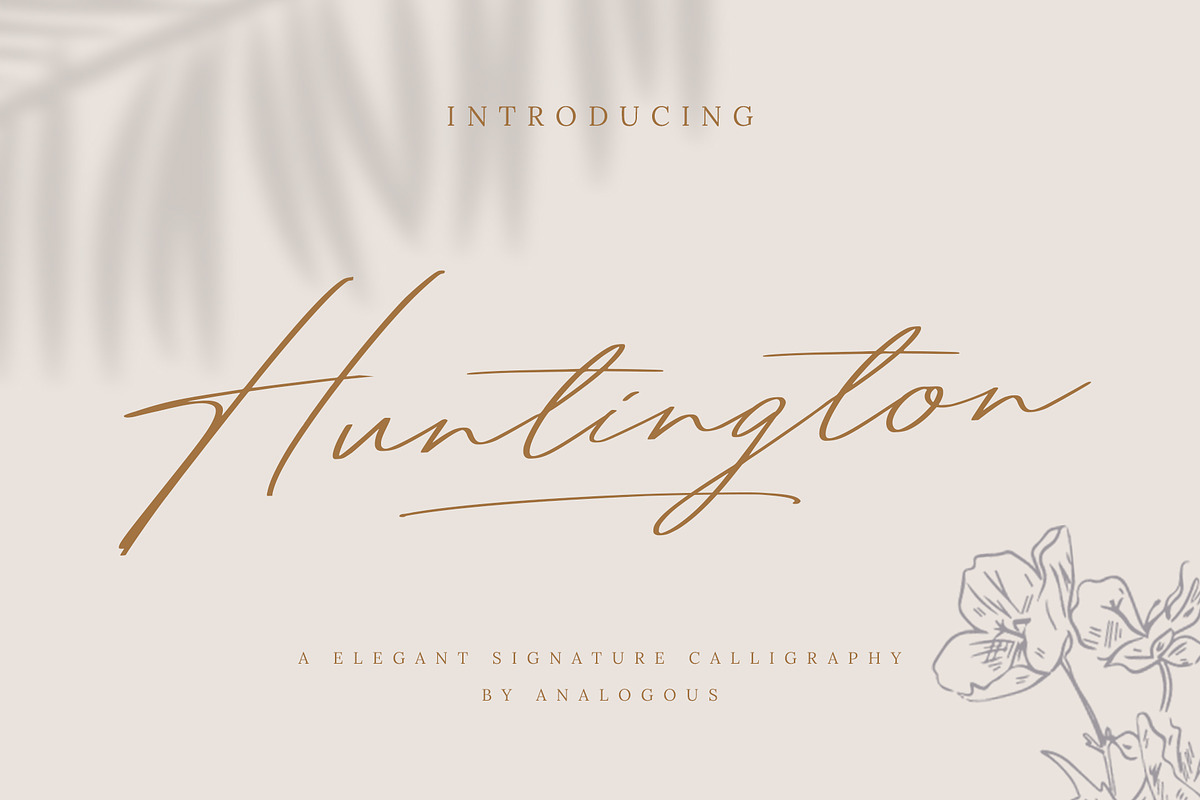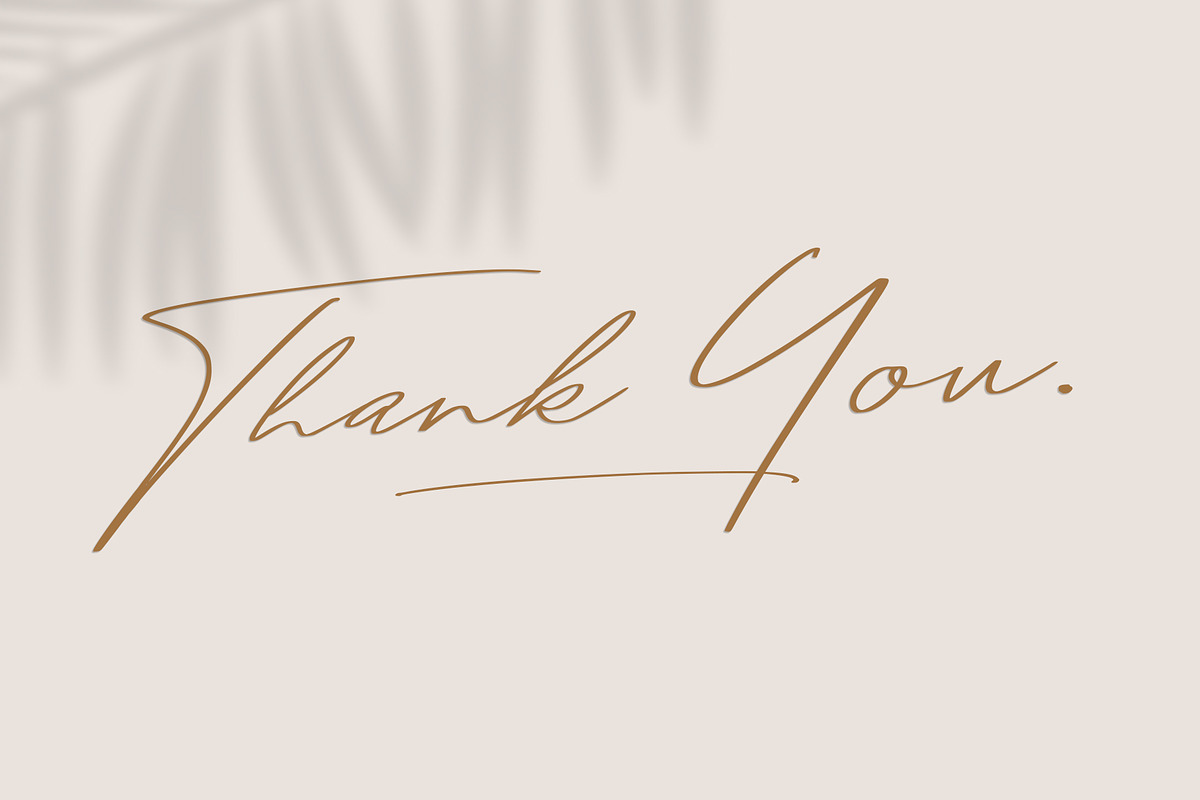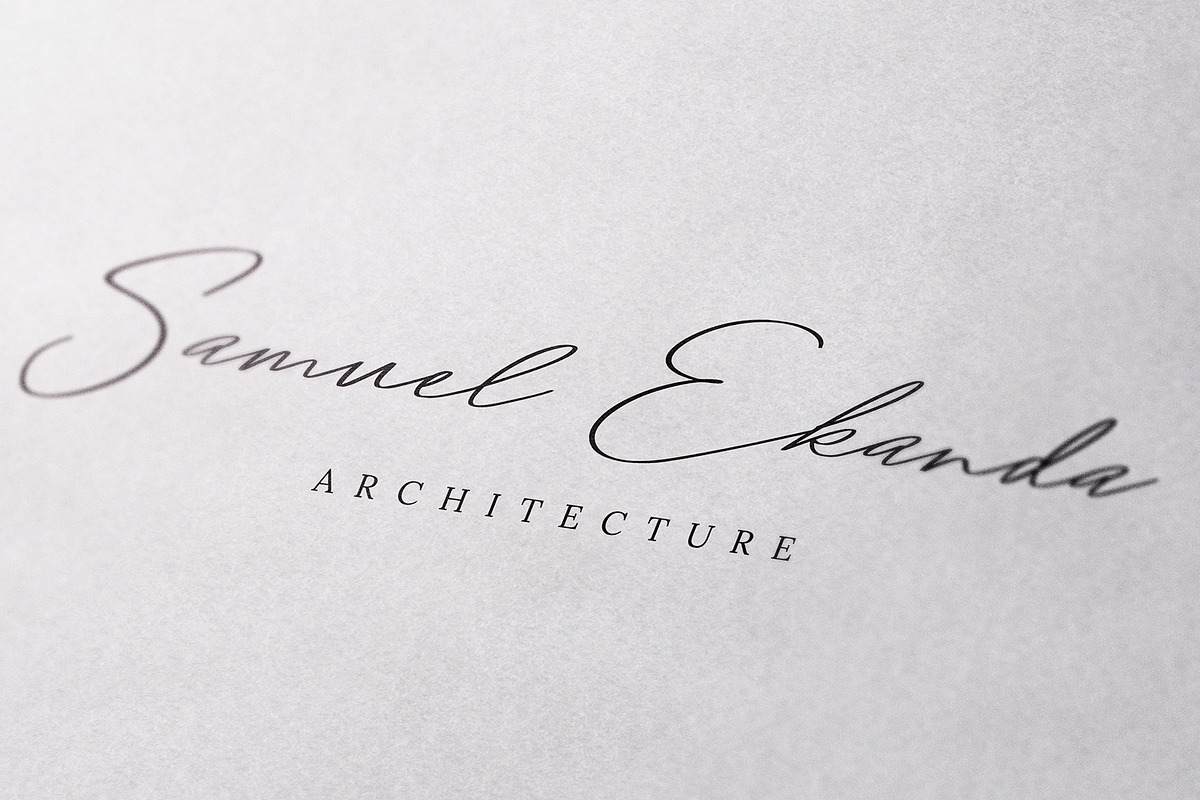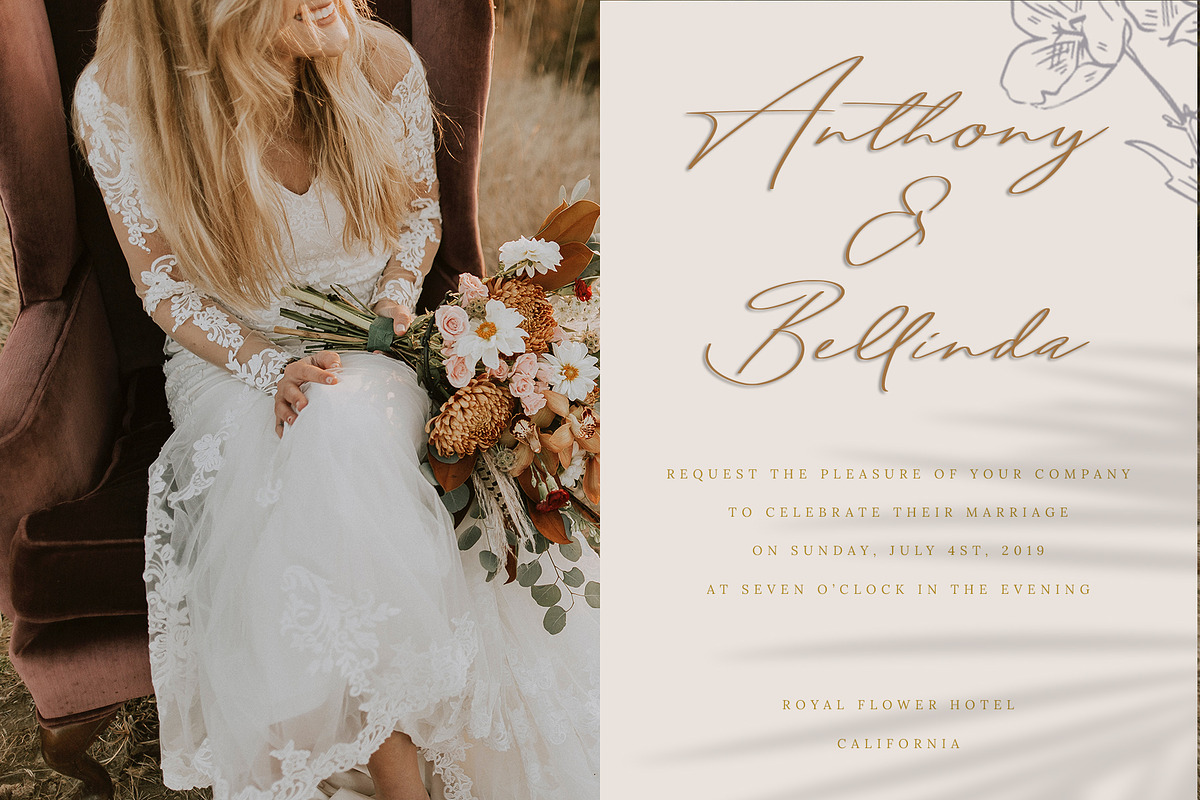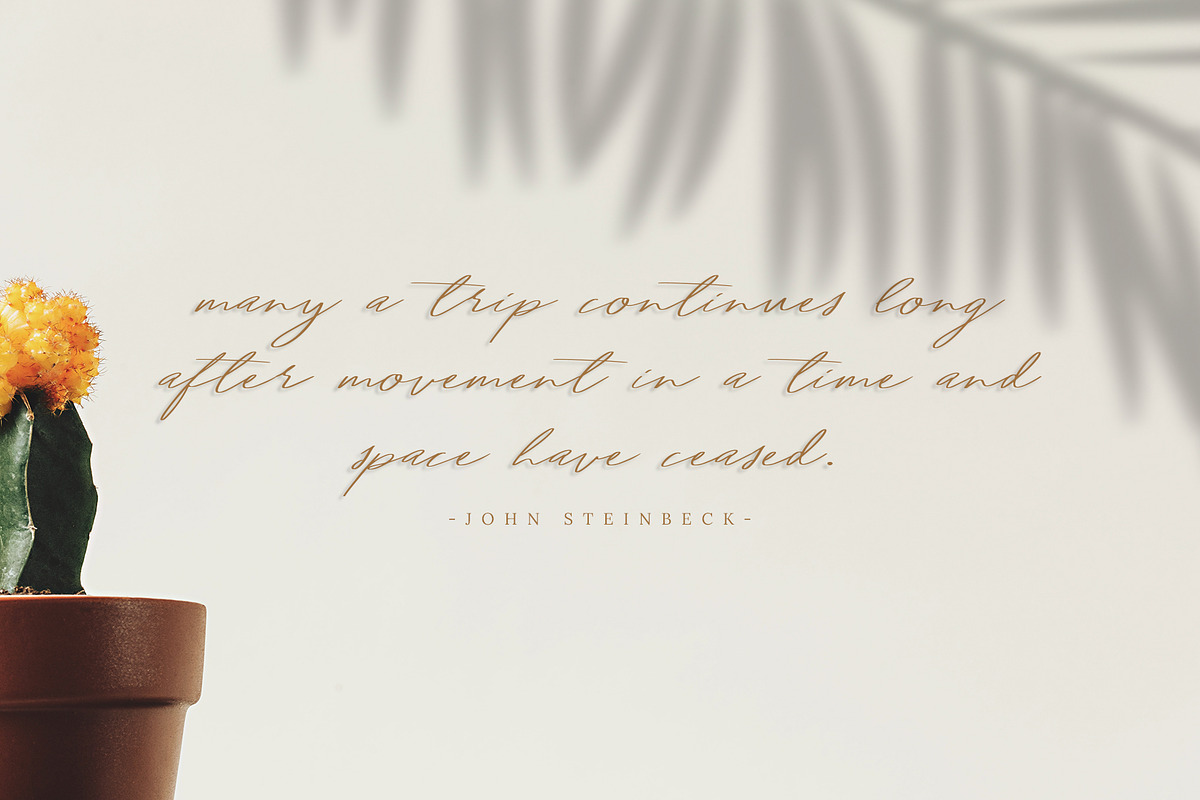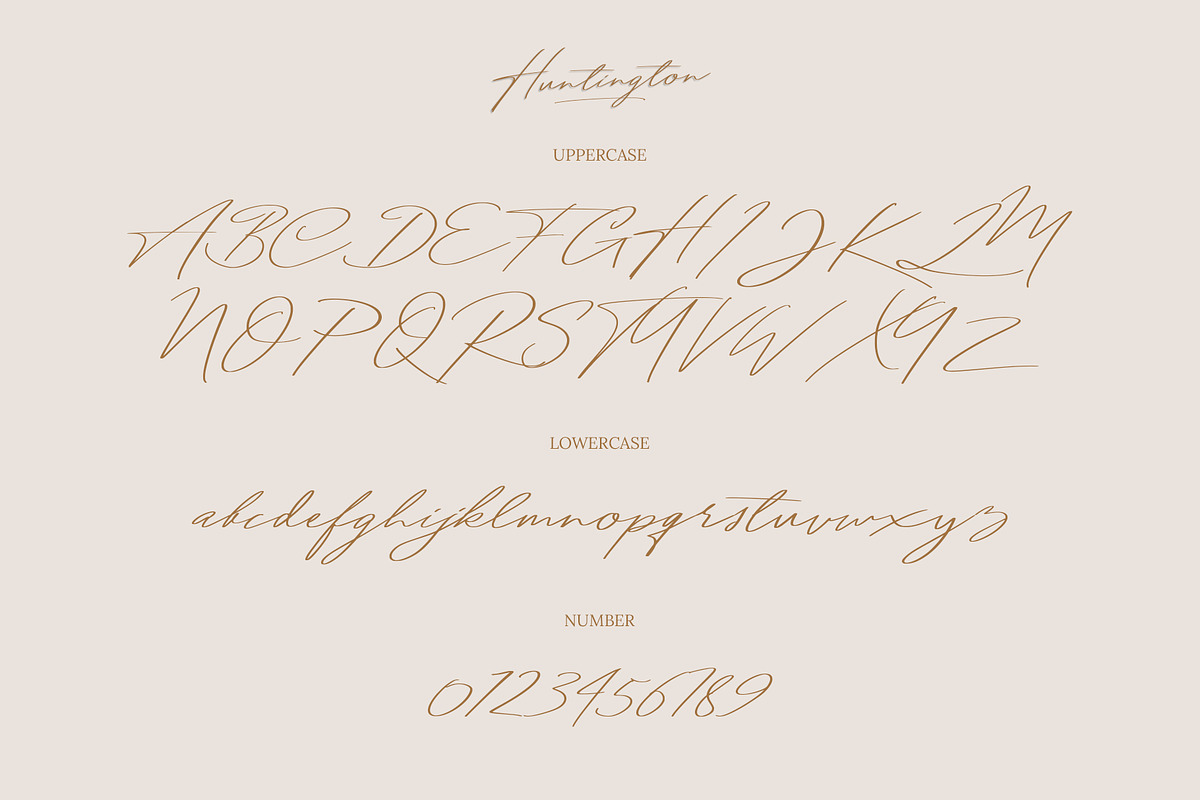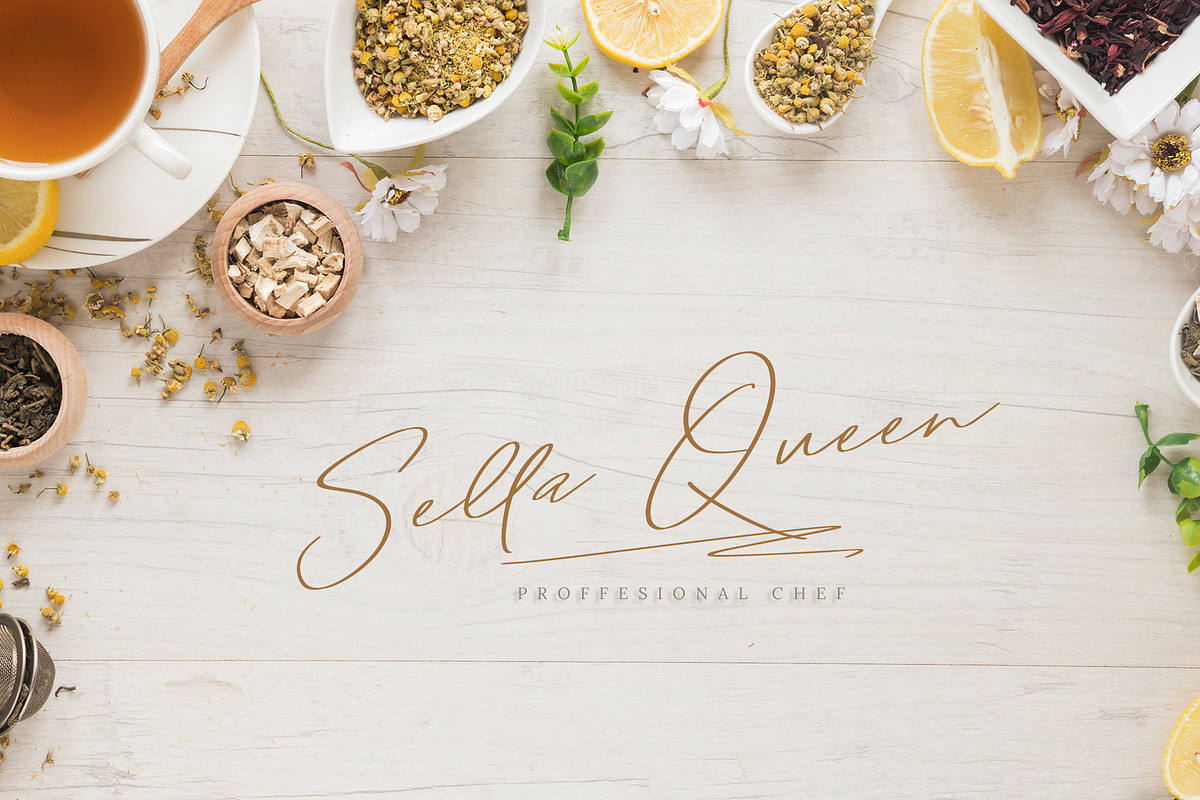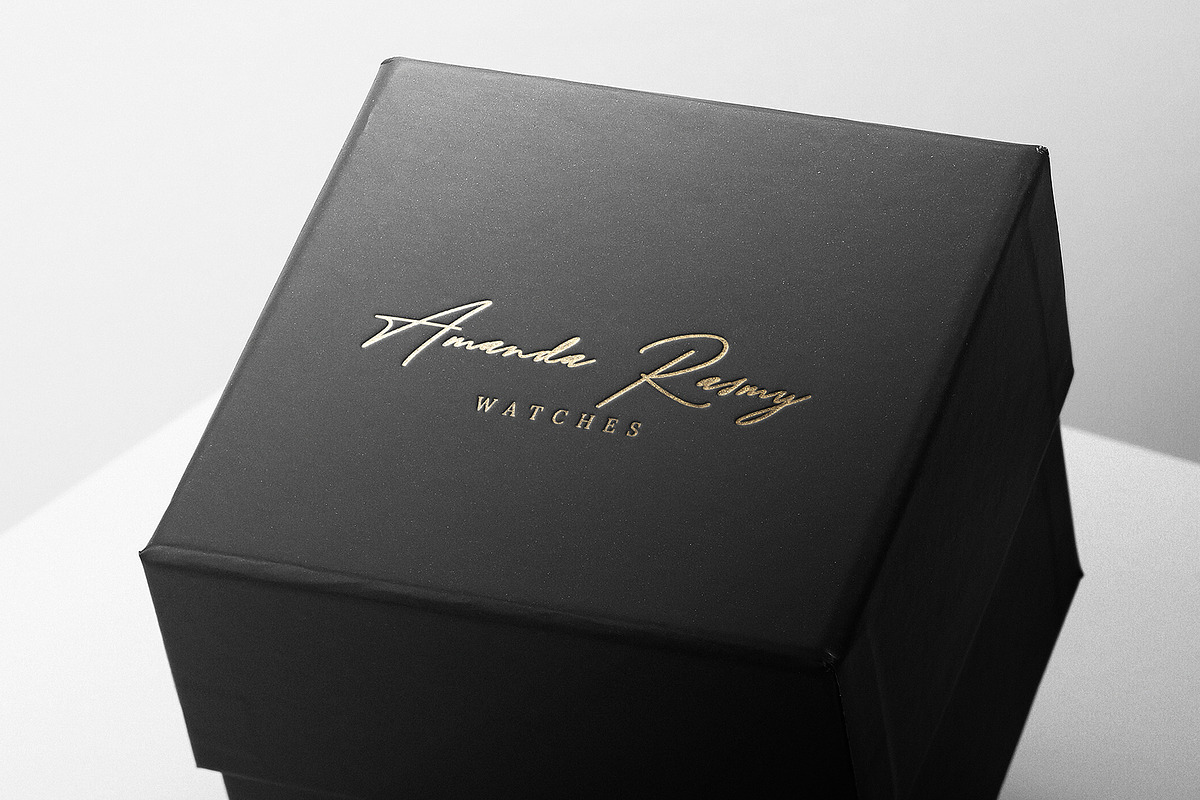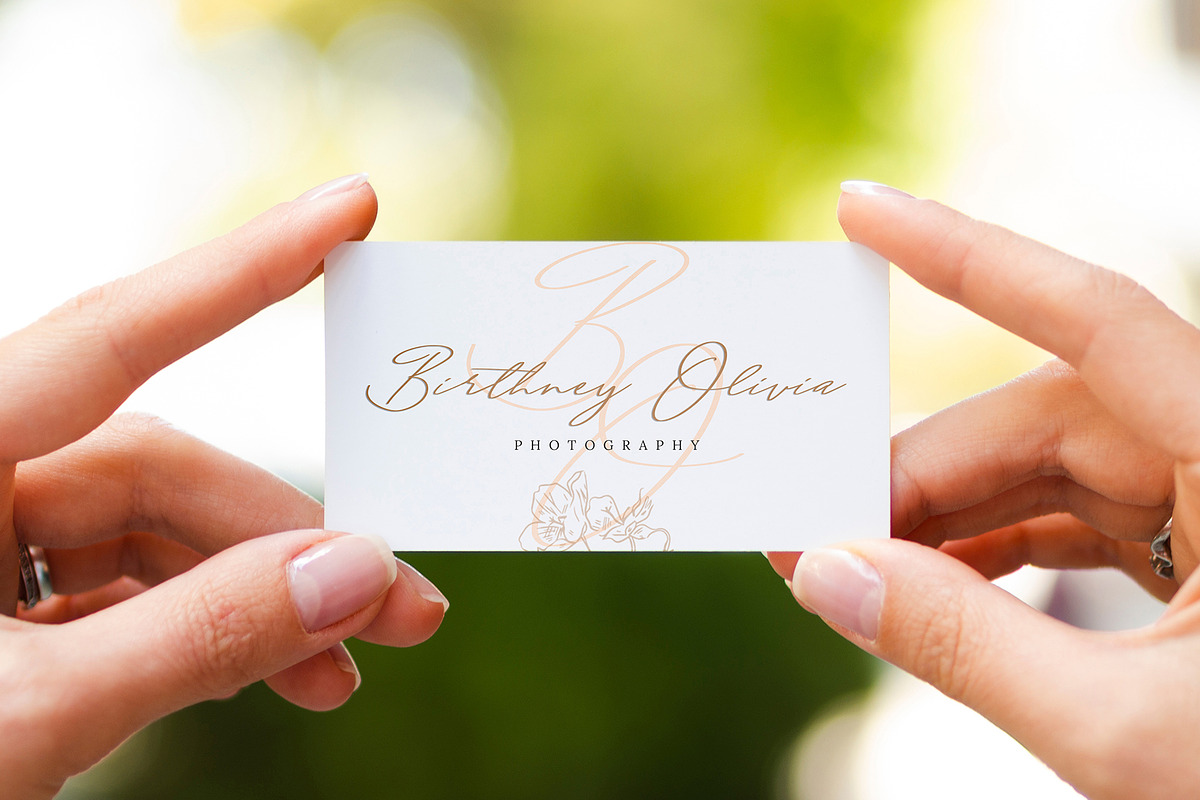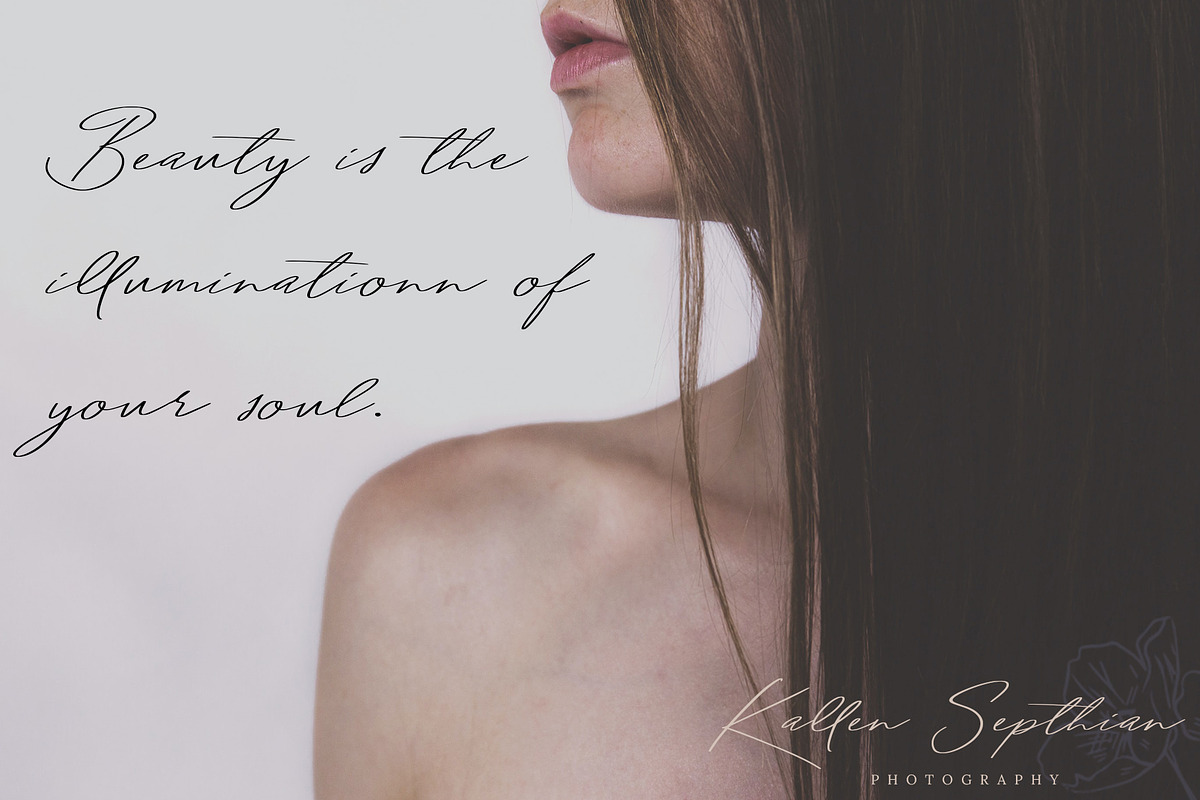
Huntington Signature Script
Introducing Huntington Signature
Huntington Signature is perfect for branding projects, logo, wedding designs, social media posts, advertisements, product packaging, product designs, label, photography, watermark, invitation, stationery and any projects that need handwriting taste.